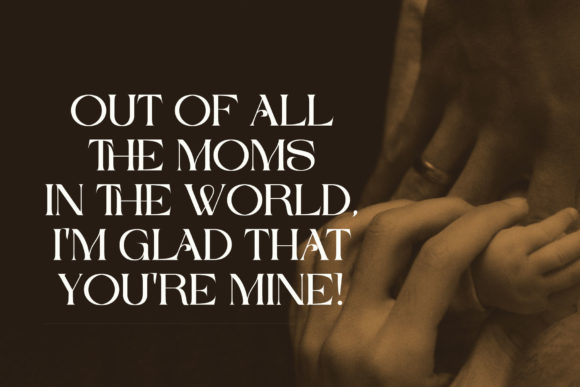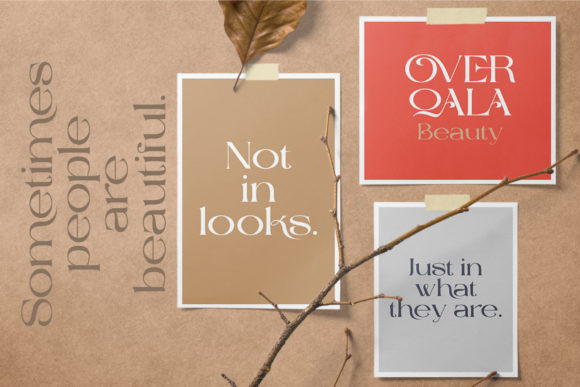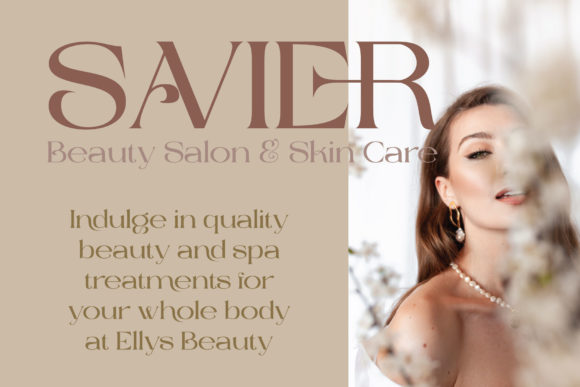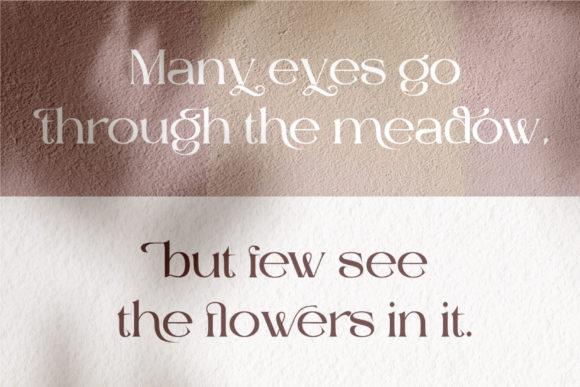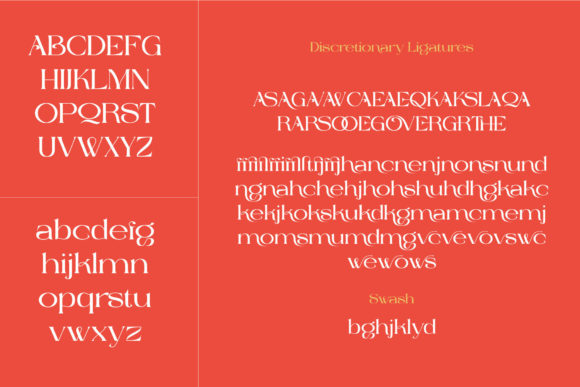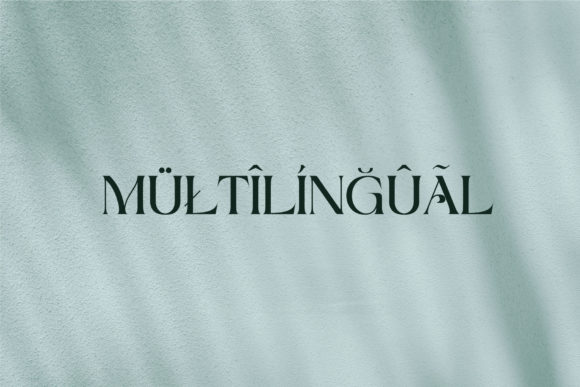
Cavas Font: Elevate Your Designs with Elegance and Sophistication
In the world of typography, a font can make or break a design. For designers and crafters looking to add a touch of elegance and sophistication to their work, Cavas Font is an excellent choice. This modern and elegant serif font is designed to make your designs stand out, with discretionary ligatures that give each word a unique shape.
The Perfect Choice for Creative Projects
Cavas Font is the perfect choice for a variety of creative projects, including logo designs, posters, and various types of promotional media. Its classic serif design exudes professionalism and sophistication, making it ideal for businesses and individuals looking to establish a strong brand identity.
What Sets Cavas Font Apart
So, what sets Cavas Font apart from other fonts? The answer lies in its discretionary ligatures. These ligatures give each word a unique shape, adding a touch of elegance and sophistication to your designs. With Cavas Font, you can create beautiful and intricate designs that are sure to capture the attention of your audience.
Key Features of Cavas Font
- Modern and Elegant Design: Cavas Font features a modern and elegant serif design that is perfect for a variety of creative projects.
- Discretionary Ligatures: The font includes discretionary ligatures that give each word a unique shape, adding a touch of elegance and sophistication to your designs.
- Perfect for Logo Designs: Cavas Font is ideal for logo designs, with its classic serif design and elegant ligatures.
- Multipurpose: The font is suitable for a variety of creative projects, including posters, promotional media, and more.
Benefits of Using Cavas Font
Using Cavas Font in your designs offers a range of benefits, including:
- Establish a Strong Brand Identity: With its classic serif design and elegant ligatures, Cavas Font can help you establish a strong brand identity that sets you apart from the competition.
- Elevate Your Designs: Cavas Font can elevate your designs, adding a touch of elegance and sophistication that is sure to capture the attention of your audience.
- Easy to Read: The font is easy to read, making it perfect for body text and other applications where readability is key.
Tips for Using Cavas Font
Here are a few tips for using Cavas Font in your designs:
- Use it for Headings: Cavas Font is perfect for headings and titles, where its elegant ligatures can really shine.
- Experiment with Ligatures: Don’t be afraid to experiment with the font’s discretionary ligatures to create unique and interesting designs.
- Pair it with Other Fonts: Cavas Font can be paired with other fonts to create a unique and visually appealing design.
In conclusion, Cavas Font is a versatile and elegant serif font that is perfect for designers and crafters looking to add a touch of sophistication to their work. With its discretionary ligatures and classic serif design, it’s ideal for a variety of creative projects, from logo designs to posters and promotional media. Whether you’re looking to establish a strong brand identity or simply want to elevate your designs, Cavas Font is an excellent choice.